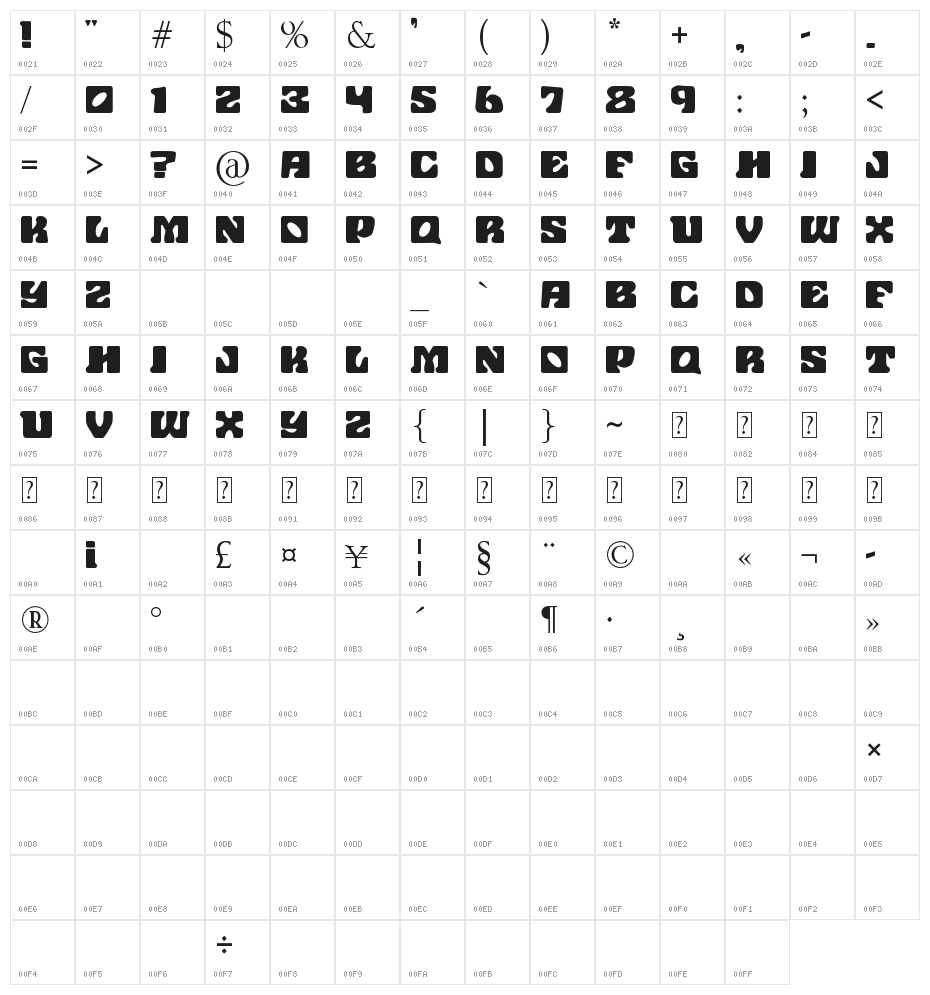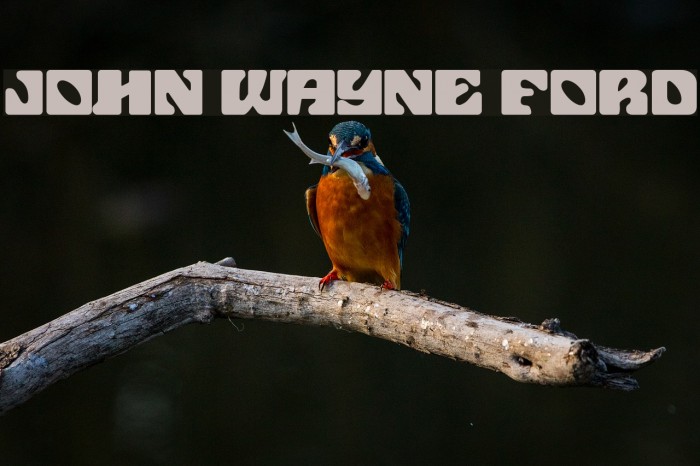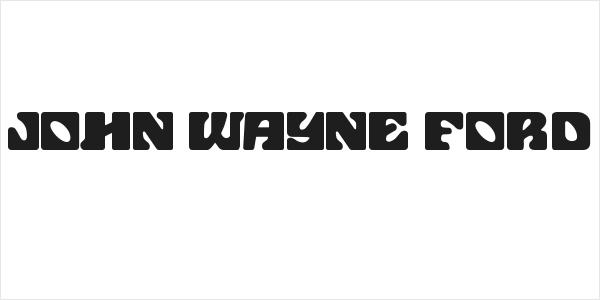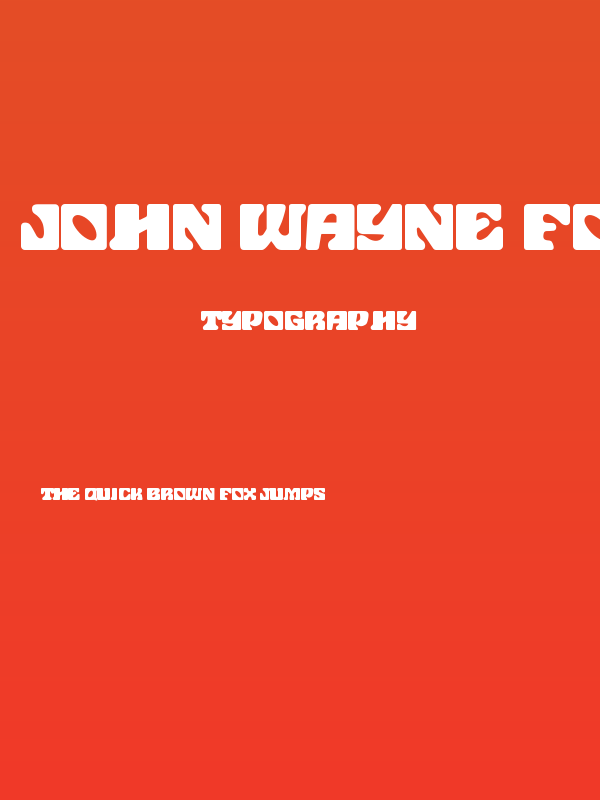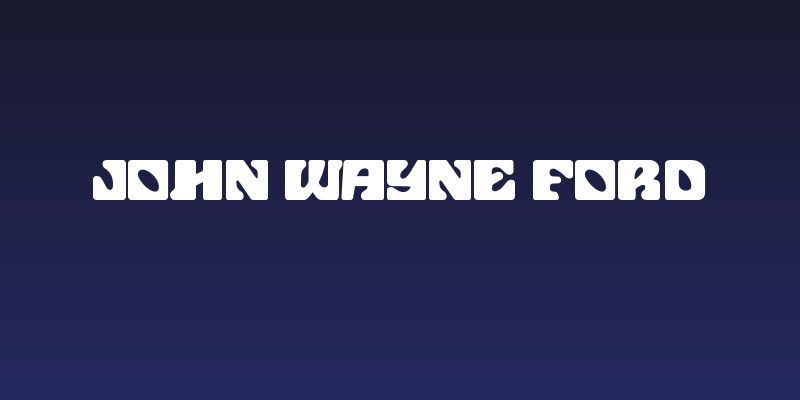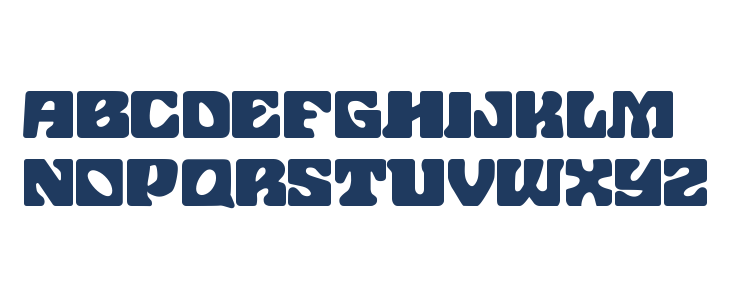
John Wayne Ford Font
John Wayne Ford Description
This font features bold, blocky characters with a strong presence, making it ideal for attention-grabbing designs. The letters are uniformly thick, with rounded edges that soften the overall look. The numbers and special characters maintain the same boldness, ensuring consistency across all glyphs. The style is reminiscent of vintage western typography, with a modern twist that makes it suitable for contemporary designs. Its unique appearance is both playful and assertive, making it versatile for various creative projects.
| Proposed Projects | Perfect for posters, logos, branding, and any design requiring a strong, eye-catching typeface. |